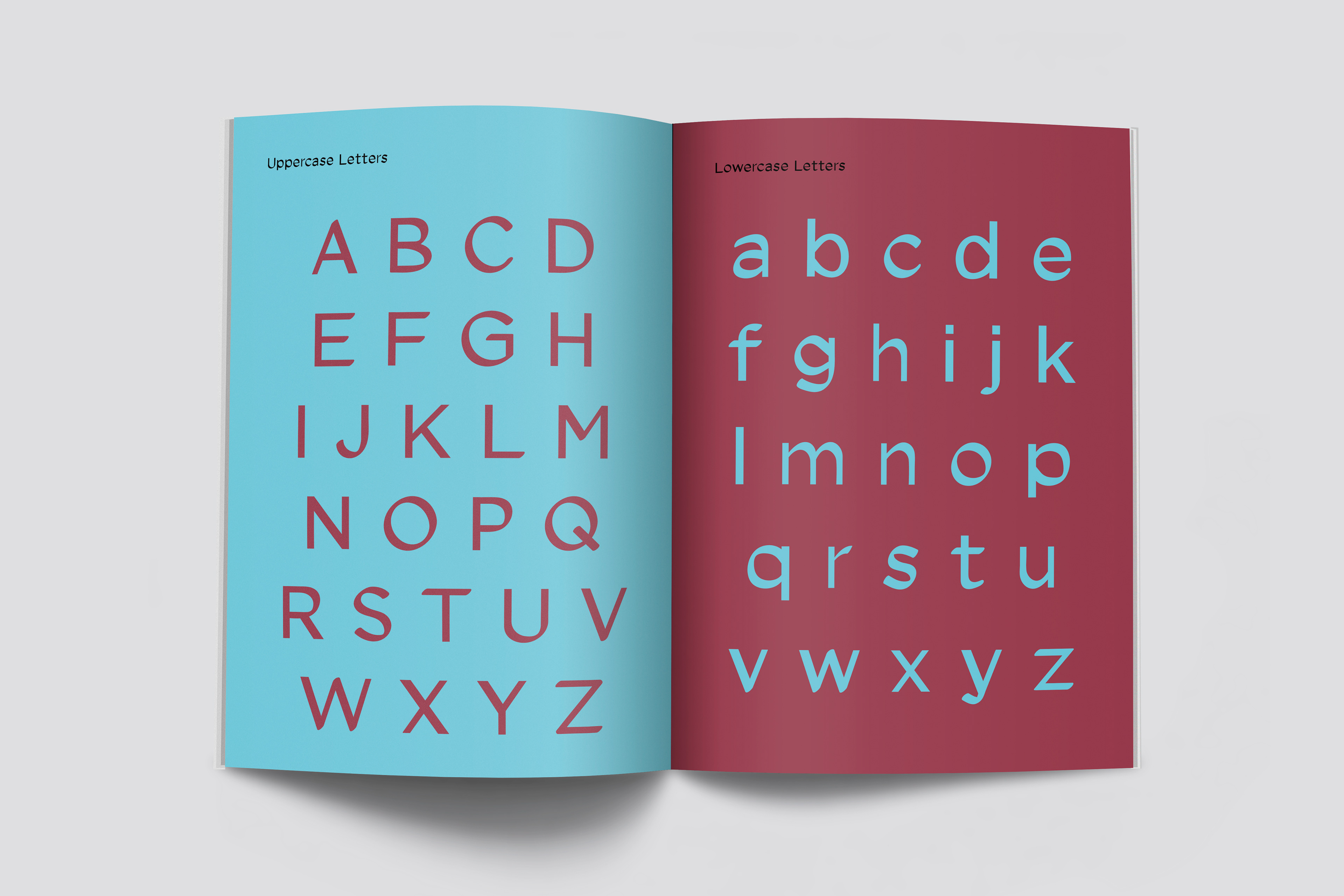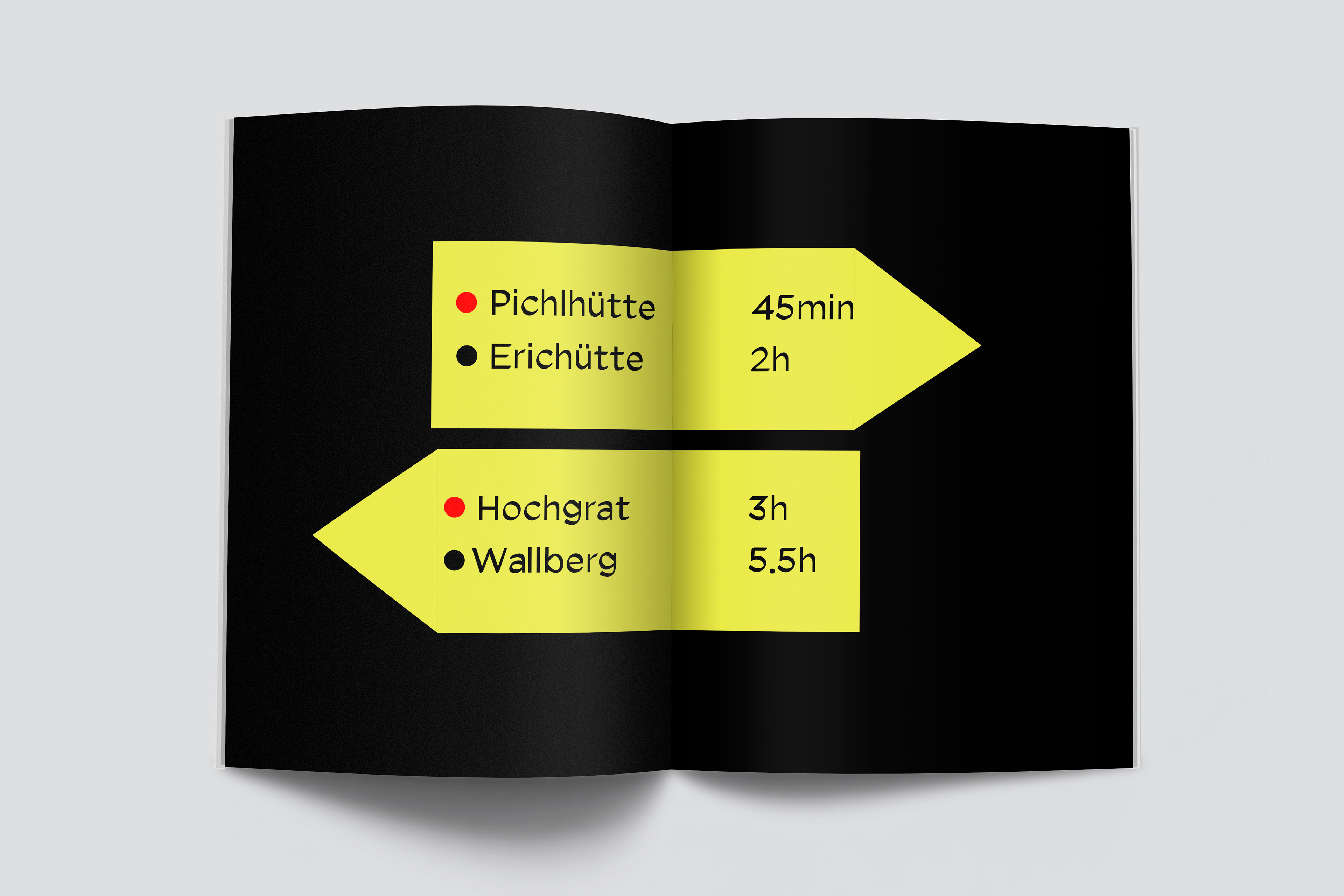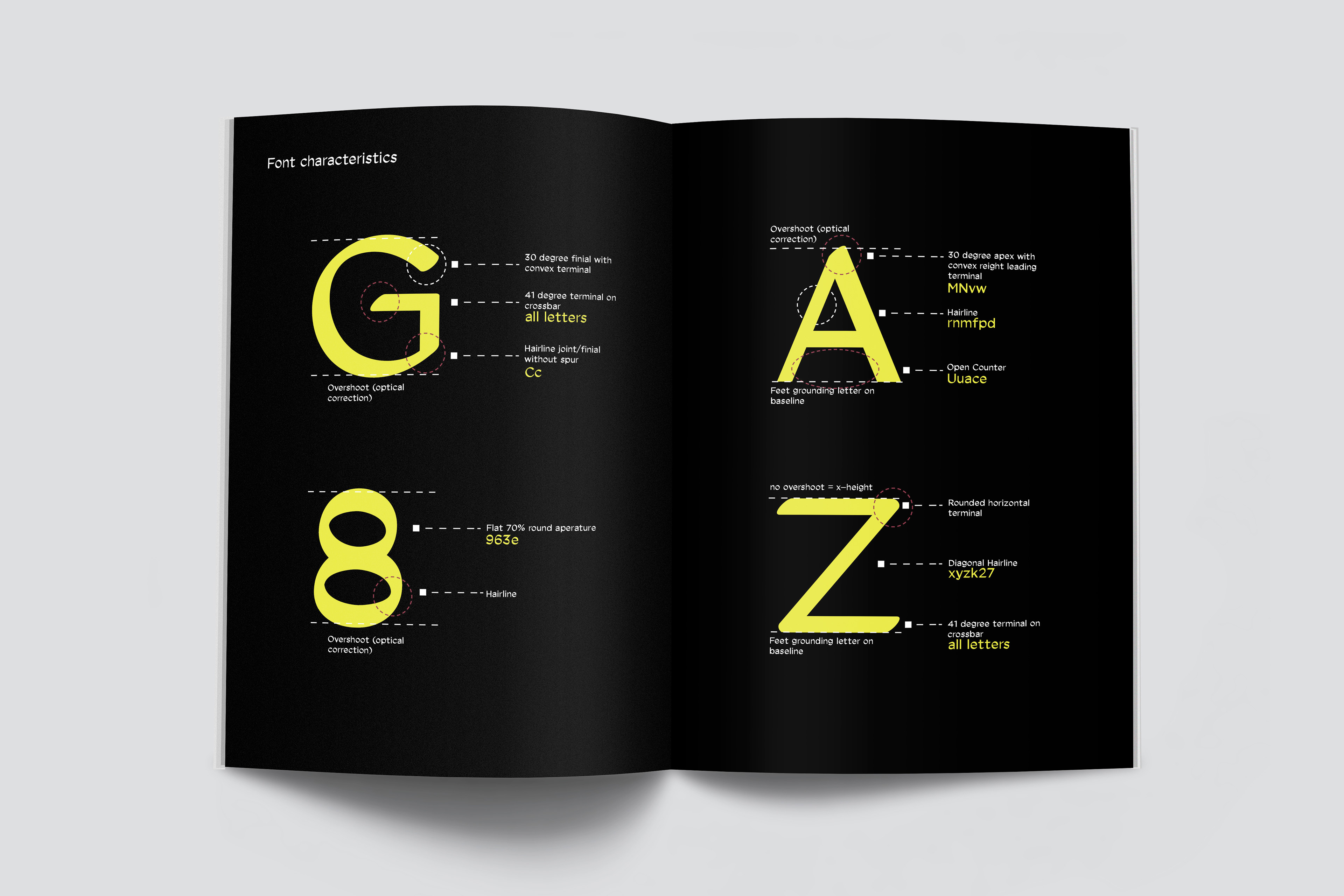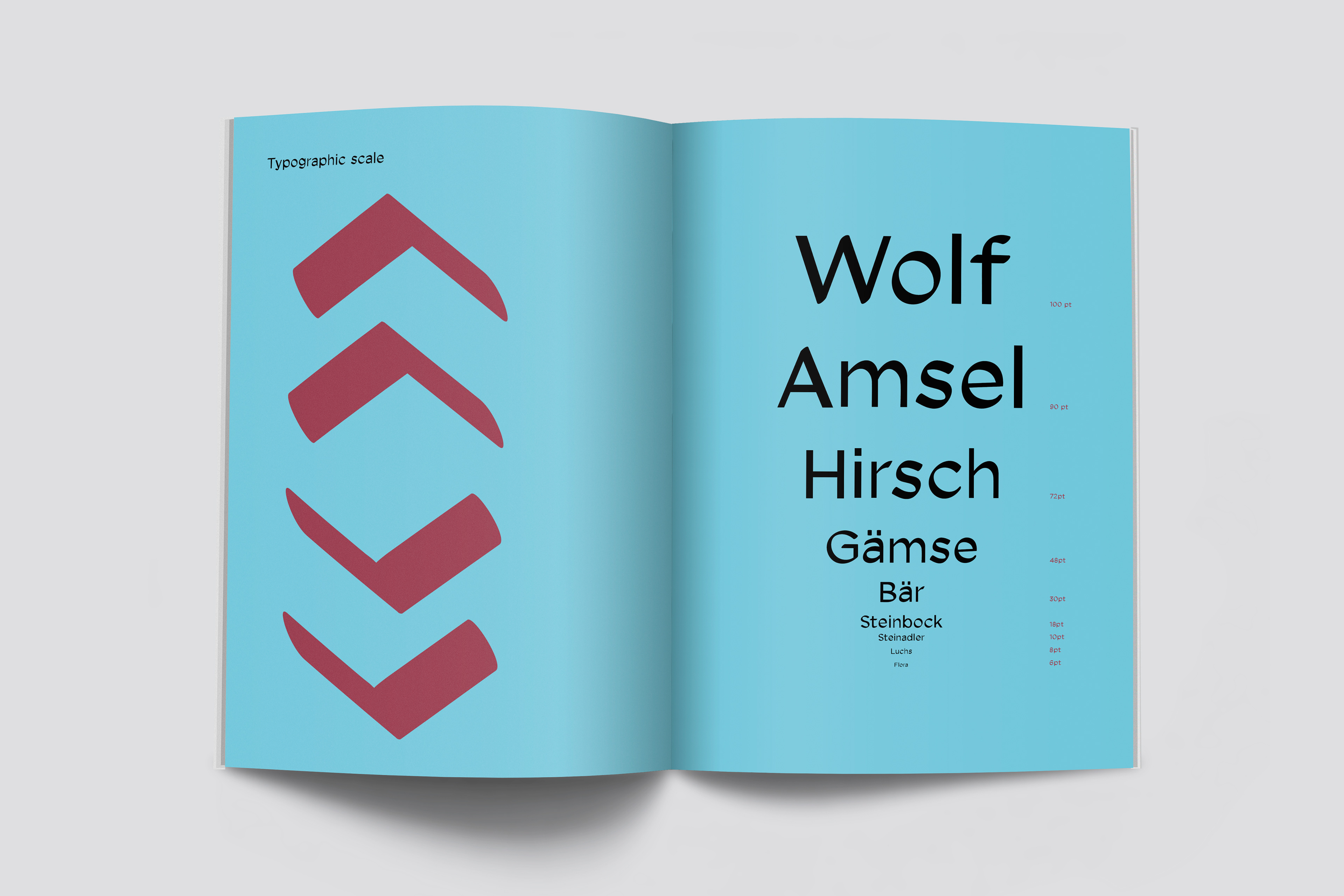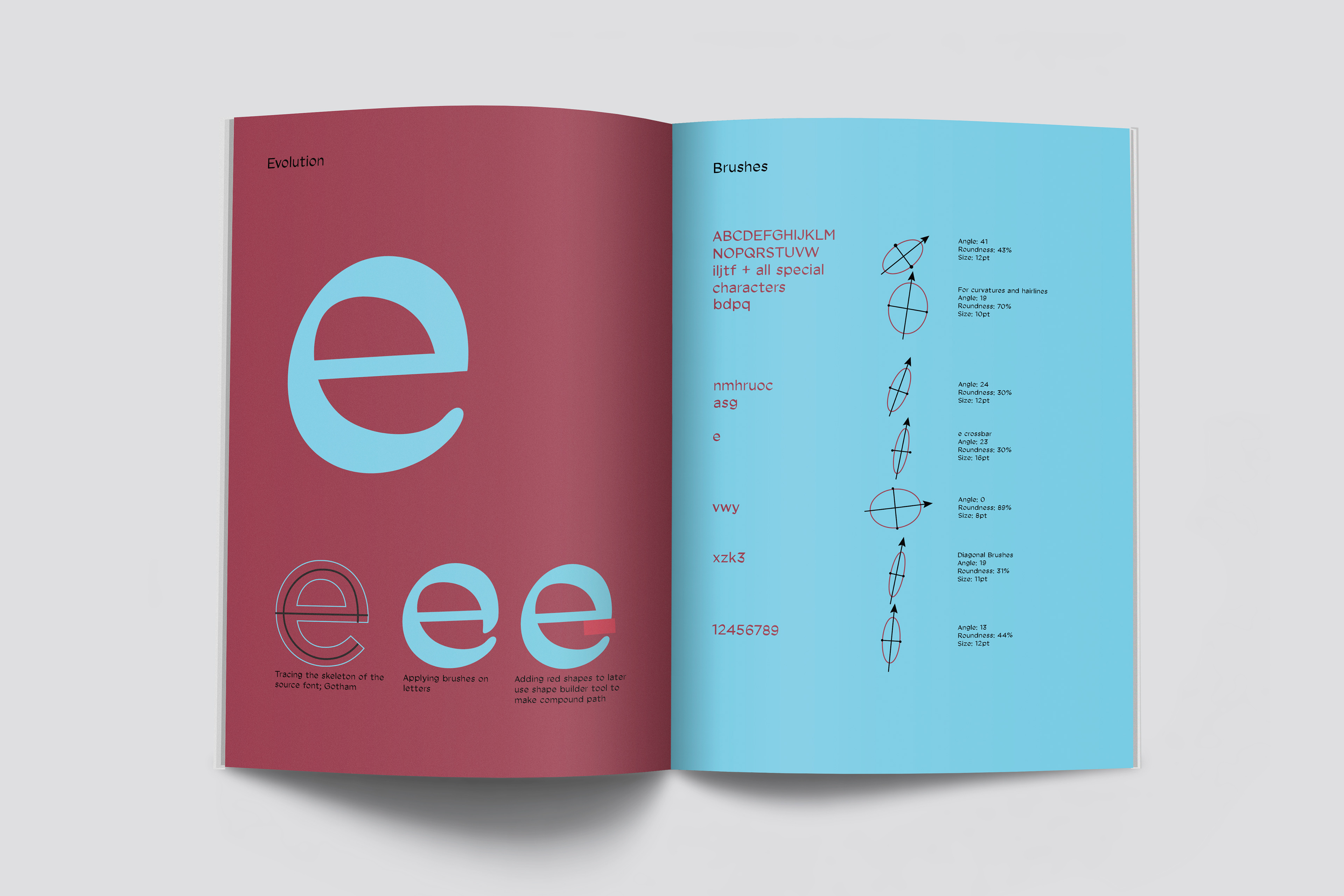
Wallberg sans is a medium contrast typeface based on architectural signage of the mid-twentieth century Gotham skeleton. Wallberg sans is a more flowing naturalist take on the classic type, playing with brushed terminals to lead the text to the right. Wallberg has a large aperature and is not as broad as gotham but aims to be a contemporary script combining natural architecture with man made. It has been made for long texts moreover than its counterpart “Wallberg”.